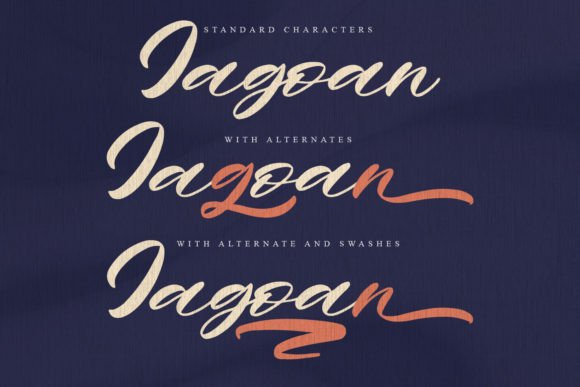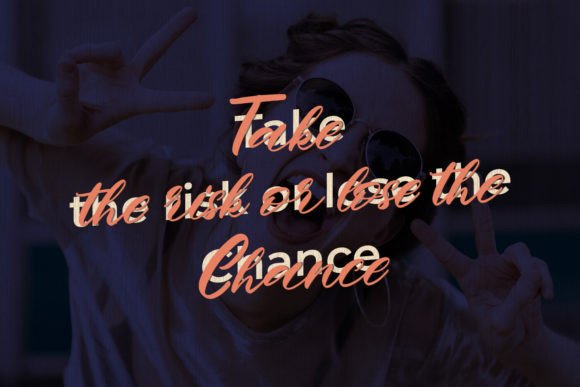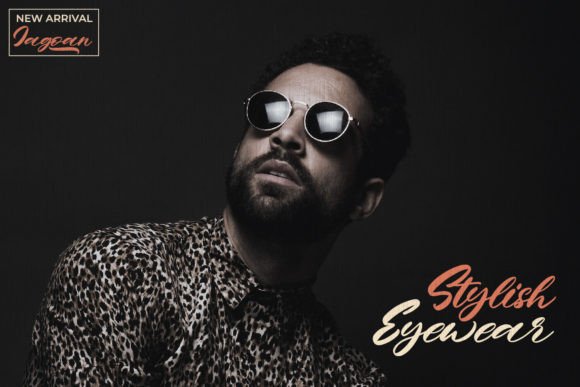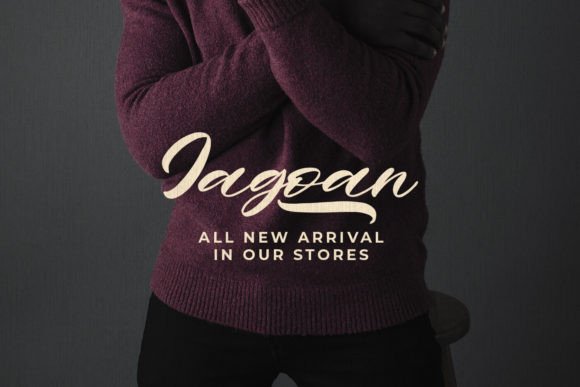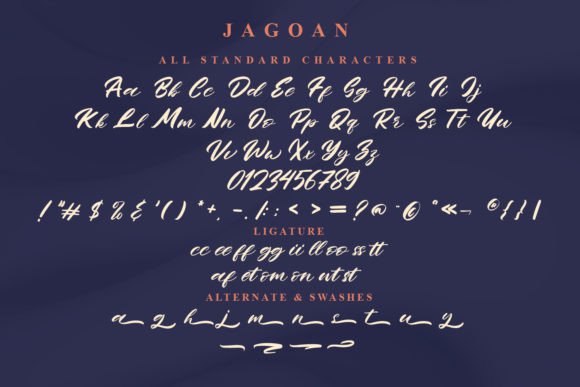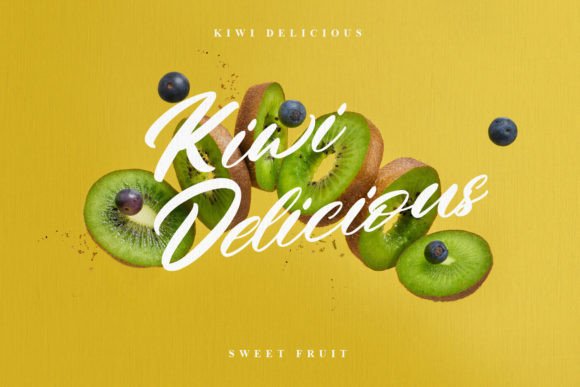
Introduction to Jagoan Font
Jagoan is a script font with a clear style and good flow.
It is great for your next creative project such as logotypes, printed quotes, invitations, cards, product packaging, headers, letterheads, posters, apparel design, labels and so much more .